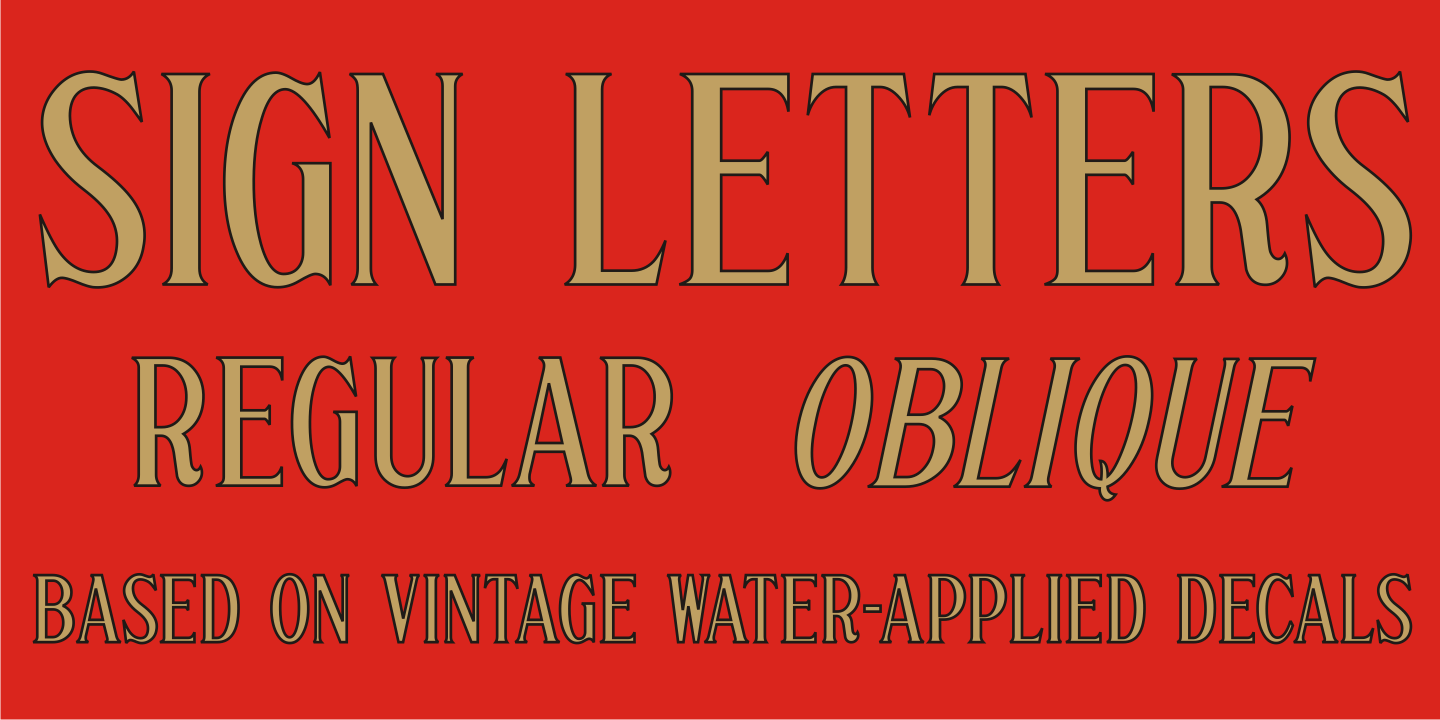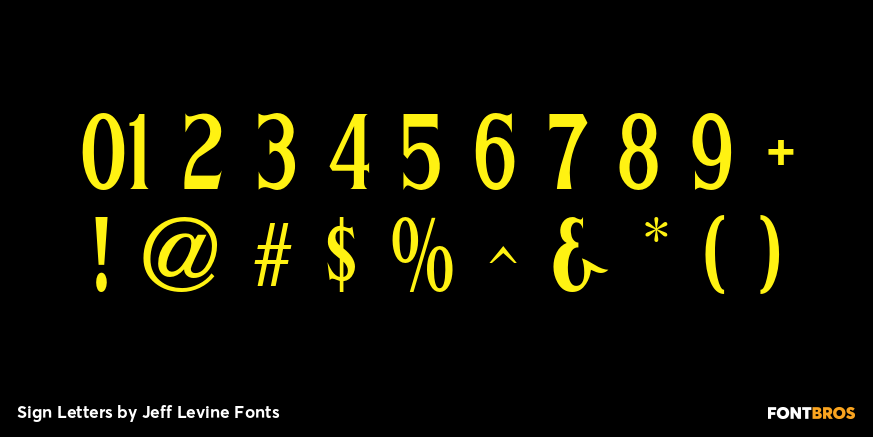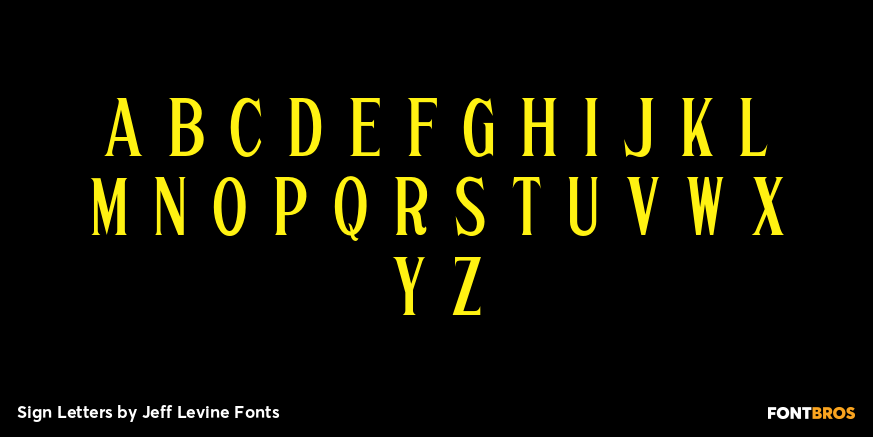
Sign Letters
A few scant examples of some condensed Roman style water-applied decals inspired Sign Letters JNL.
The decals were once part of the gold and black 'Signmaker' letters and numbers once manufactured by the Duro Decal Company of Chicago and were sold through hardware and variety stores across the country.
The condensed letters (which were eight inches in height) did not sell as well as Duro's mainstay sizes of 1/2 inch to 3-1/2 inches and were discontinued long before the rest of the line was supplanted by self-adhesive lettering.